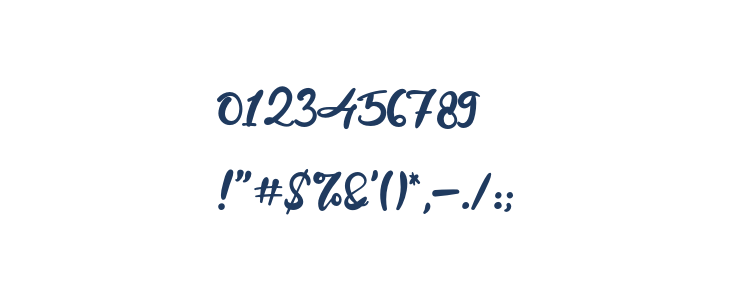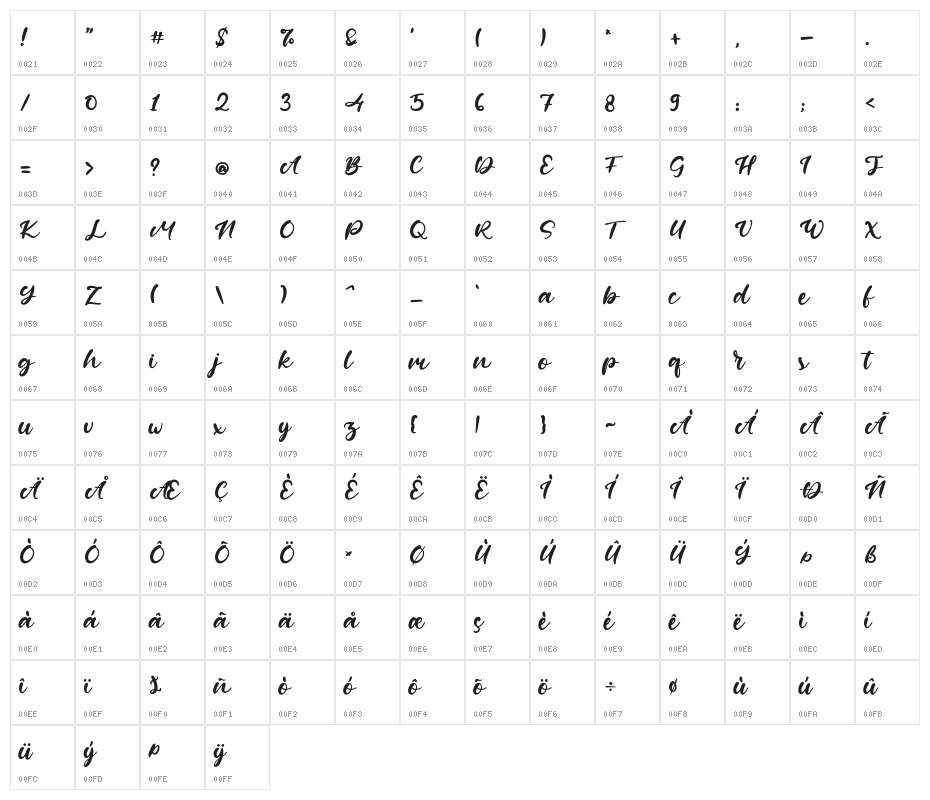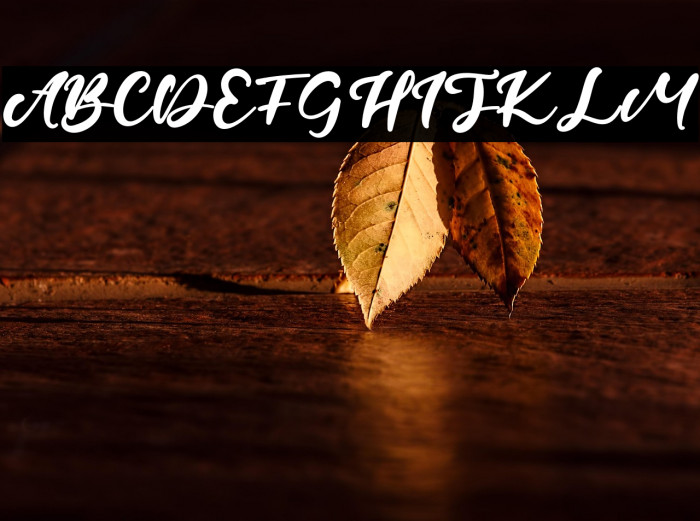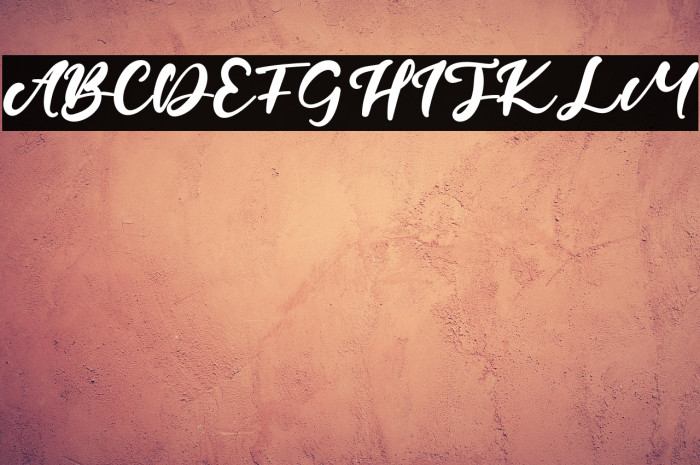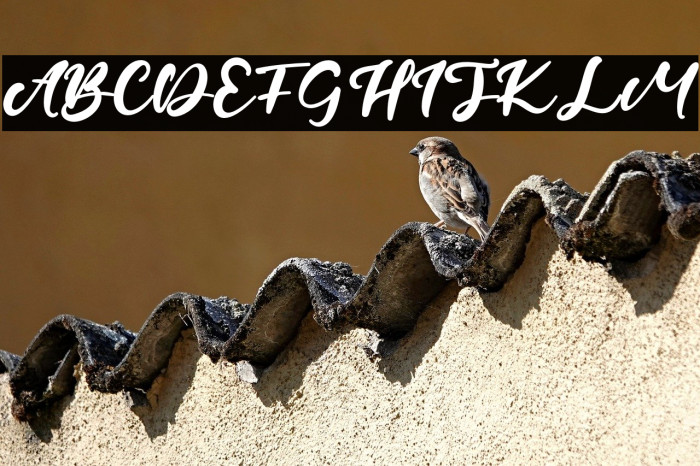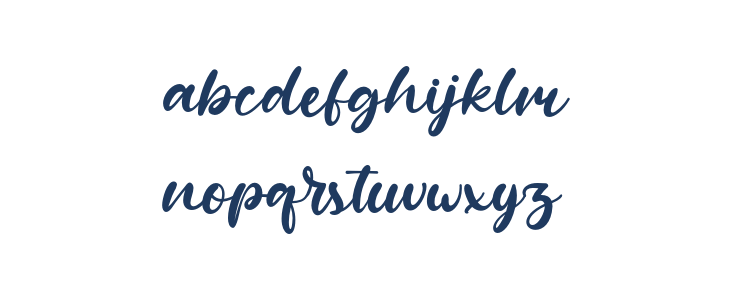
CandleFest Font
CandleFest Description
This font exudes a lively and elegant script style, characterized by its fluid and connected letterforms. The uppercase letters are bold and sweeping, with a sense of movement that adds a dynamic flair. The lowercase letters maintain a consistent flow, enhancing readability while retaining a handwritten charm. Numbers and special characters are crafted with the same attention to detail, ensuring a cohesive look across all glyphs. The strokes are smooth and rounded, contributing to a friendly and approachable aesthetic. This font is ideal for projects that require a personal touch, such as invitations, greeting cards, and branding materials.